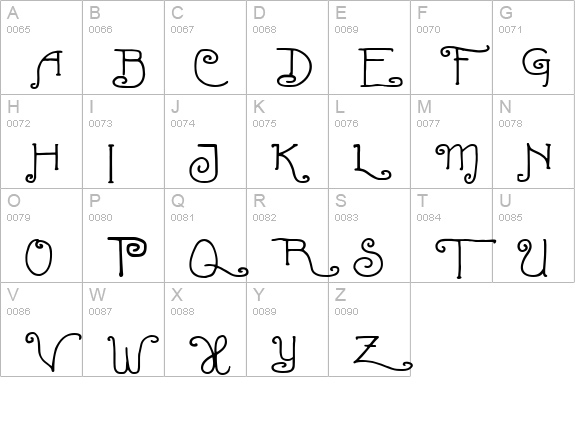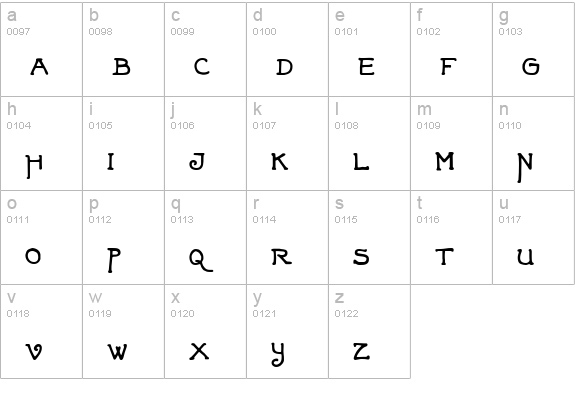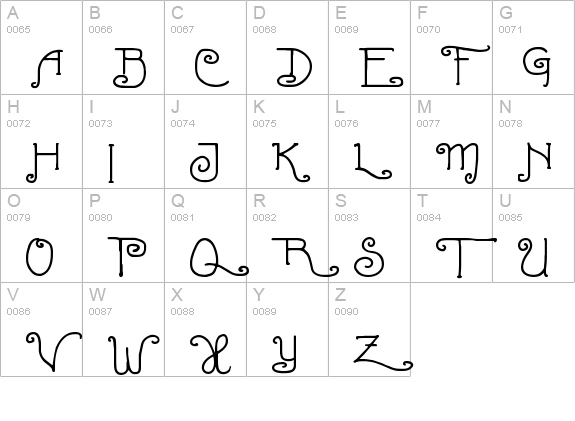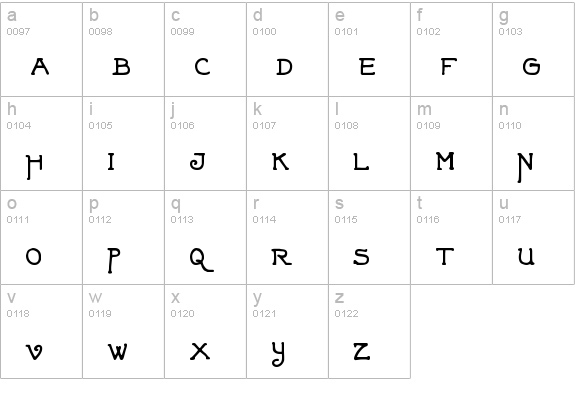
Fortunaschwein Font Details
Introducing Fortunaschwein, a beautifully crafted font that exudes elegance and sophistication. This unique typeface is a perfect blend of modern aesthetics and classic charm, making it ideal for a wide range of design projects. With its stylish curves and sleek lines, Fortunaschwein adds a touch of luxury to any design. What sets Fortunaschwein apart is not only its stunning appearance but also the fact that it is completely free to download. Yes, you read that right – this exquisite font is available for free at FontsMarket.com. Now you can elevate your designs without breaking the bank, thanks to Fortunaschwein. Whether you're working on branding, packaging, invitations, or any other creative project, this font is sure to make a lasting impression. Don't miss out on the opportunity to enhance your designs with the beauty and sophistication of Fortunaschwein. Download it for free today at FontsMarket.com and let your creativity shine!